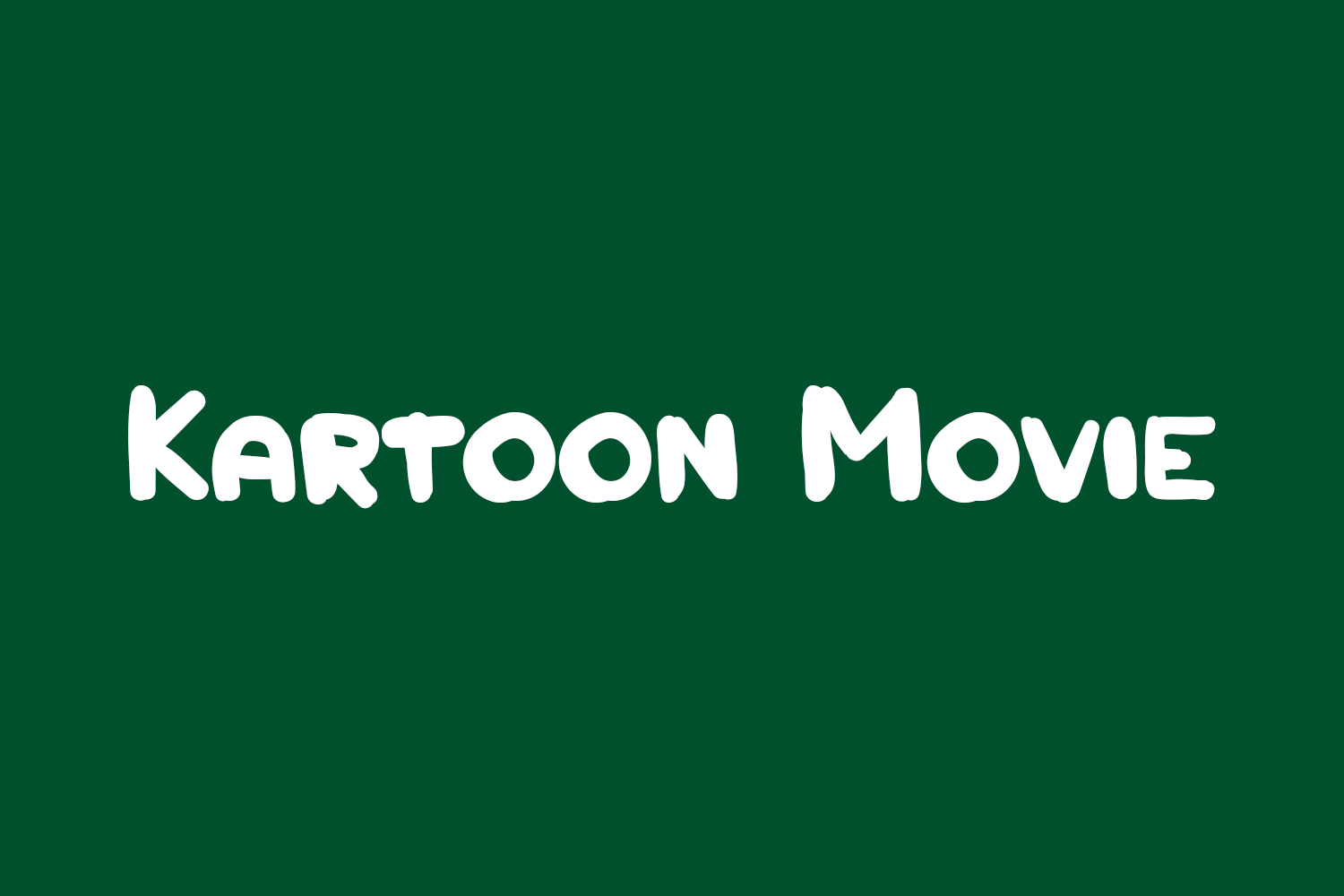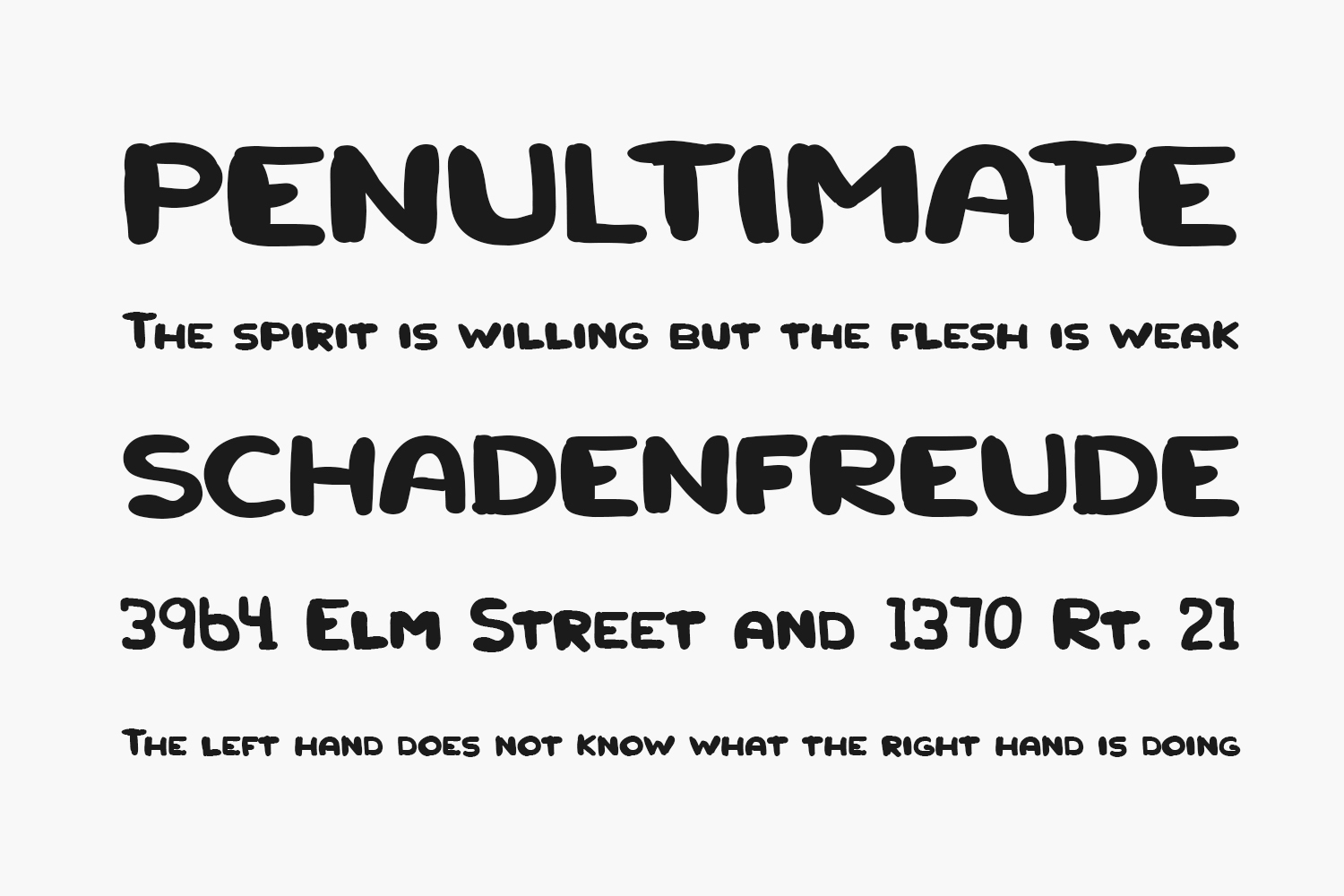
Kartoon Movie Free Font is a font that evokes feelings of playfulness and energy. Its playful and vibrant style gives it a unique and energetic feel, perfect for creating designs that exude a sense of excitement and fun. The font’s bold and colorful letters give it a cartoonish and lively feel, making it ideal for creating designs that appeal to the sense of adventure and imagination. Kartoon Movie Free Font font is perfect for creating designs that aim to evoke feelings of joy, excitement, and playfulness. It can be used for creating posters, headings, and any project that wants to catch the attention of the audience and make them smile.